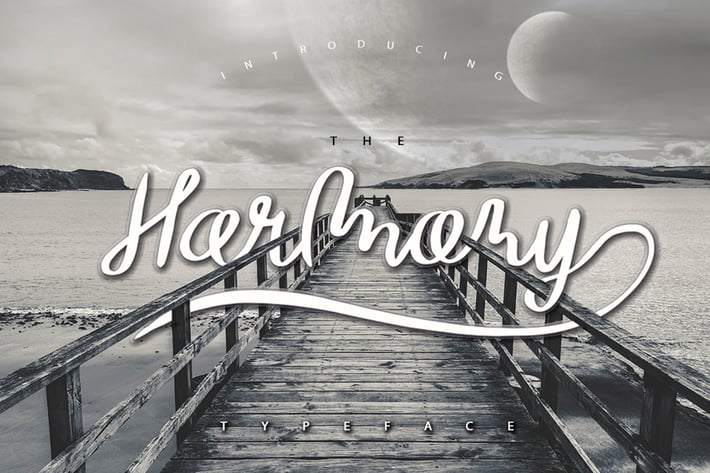
The Harmony Typeface
The harmony is a roundhand handmade font family inspired on Greek God’s. All punctuations, extensions, lowercase and uppercase, numbers and webfont.